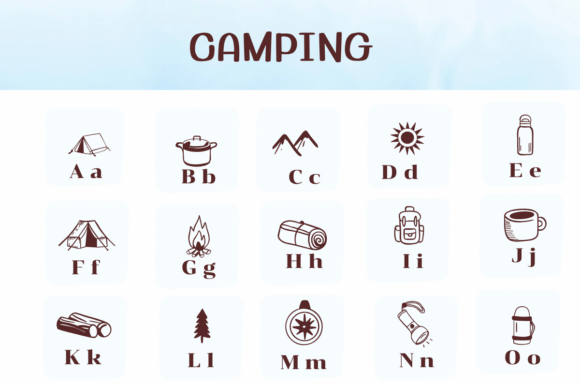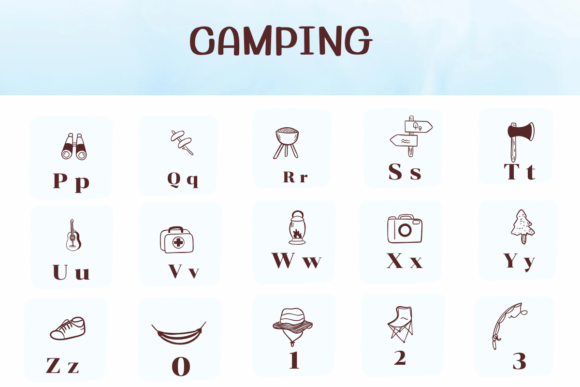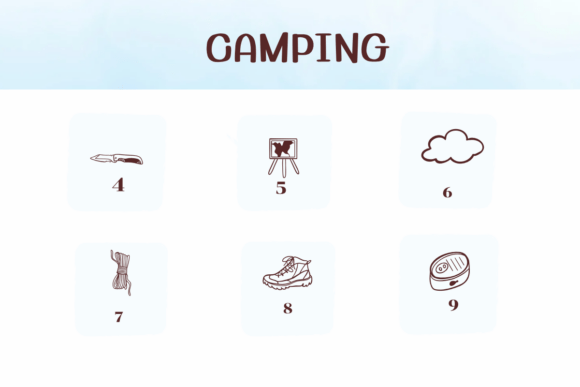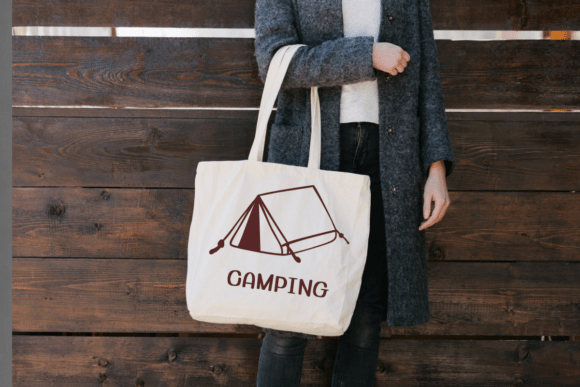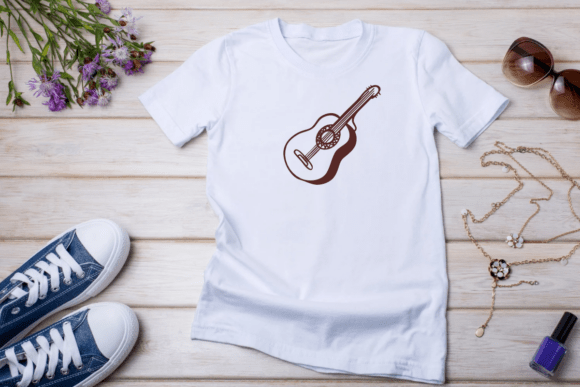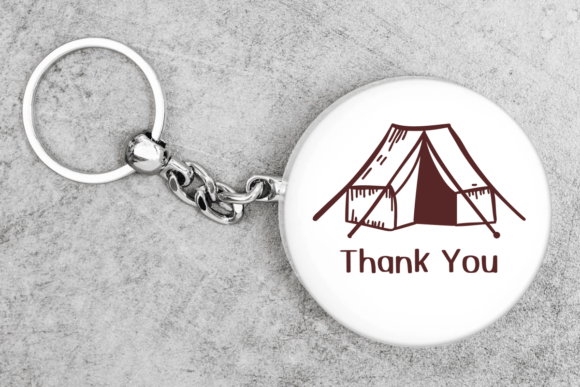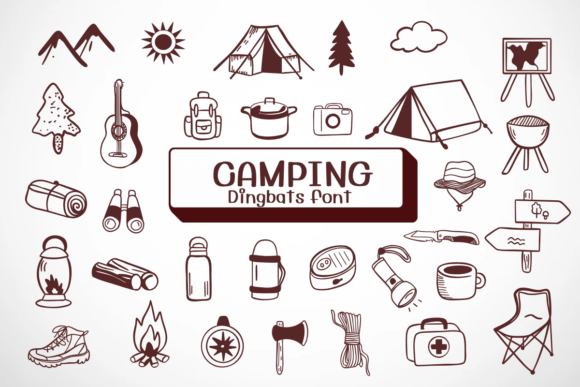
The Great Outdoors, In Fonts: Discovering Camping Font
I still remember the time I was working on a wedding invitation project, and my client asked for a font that would evoke the feeling of a rustic, outdoor celebration. I scoured the internet, tried out dozens of fonts, but nothing seemed quite right. That was until I stumbled upon Camping Font, a dingbats font with a charming, sketched style that perfectly captured the essence of the great outdoors.
A Love Letter to Camping Font
Camping Font has since become one of my go-to fonts for creative projects, and for good reason. Here are just a few things I love about it:
- ✨ Unique, hand-sketched style that’s perfect for adding a personal touch to projects
- ✅ Extensive character set, including glyphs and stylistic alternates
- 🎨 Versatile and adaptable, suitable for a wide range of creative applications
- 👍 Easy to read, even at smaller font sizes
A Few Quirks to Keep in Mind
While Camping Font is an excellent choice for many projects, it’s not without its limitations. Here are a few things to keep in mind:
- 🤔 Some characters may not work well at very small font sizes, so it’s best to use it at larger sizes (24pt or larger)
- ⚠️ Limited support for non-English characters, so it’s best to stick to English text
The Story Behind Camping Font
Camping Font was designed with the great outdoors in mind. Its creator, a passionate designer and outdoor enthusiast, wanted to capture the essence of camping and the natural world in a font that would inspire creativity and adventure.
| Font Name | Camping Font |
| Author | Ketsarin |
| What type of font is Camping Font? | Camping Font is a dingbats font with a sketched, hand-drawn style. |
| Does Camping Font support OpenType features? | Yes, Camping Font supports OpenType features, including glyphs and stylistic alternates. |